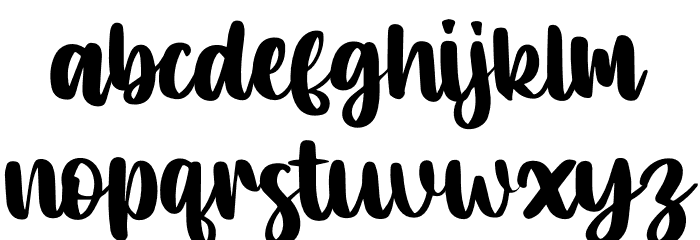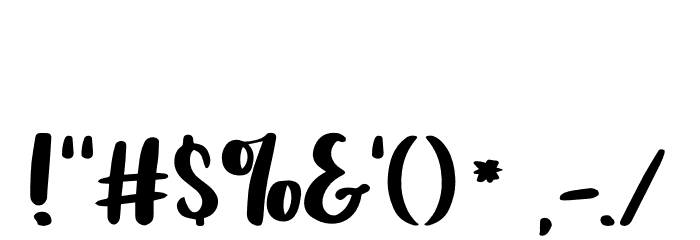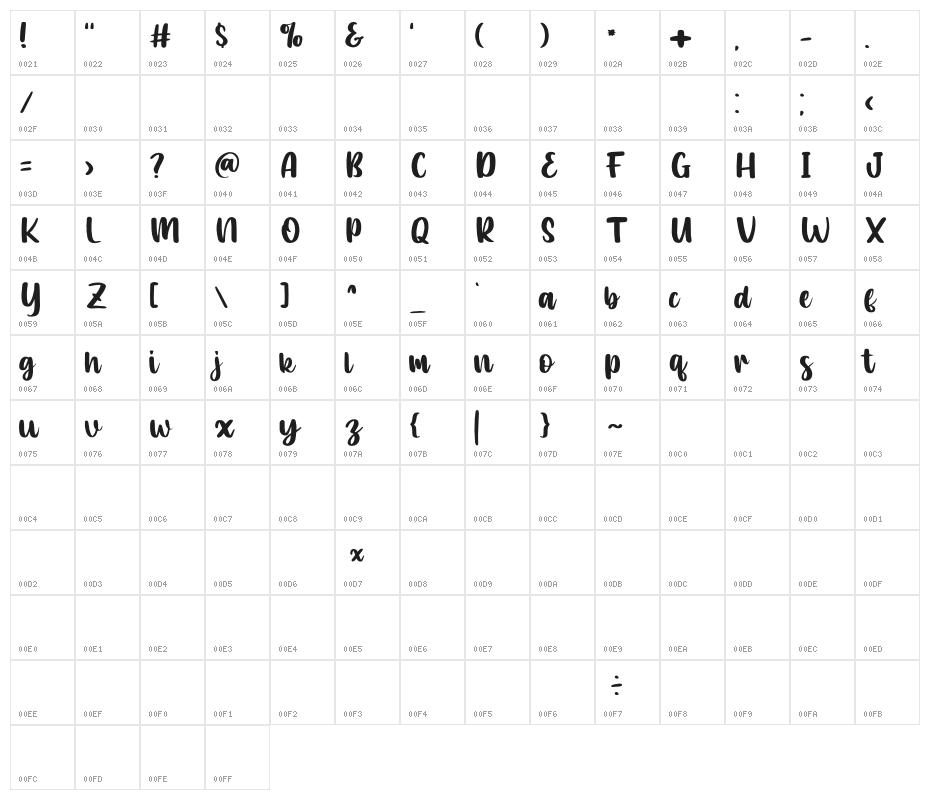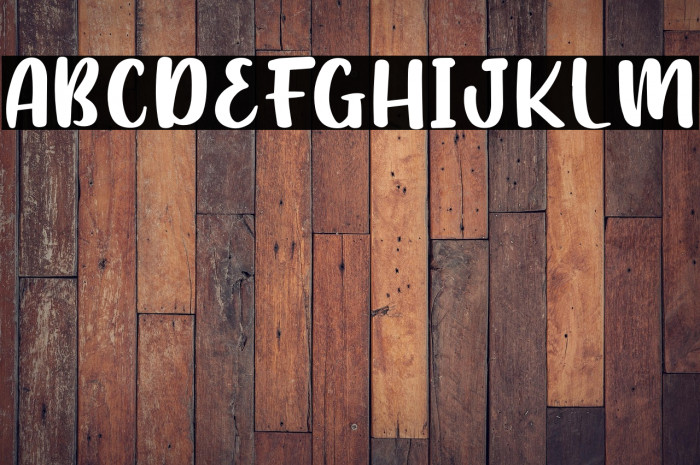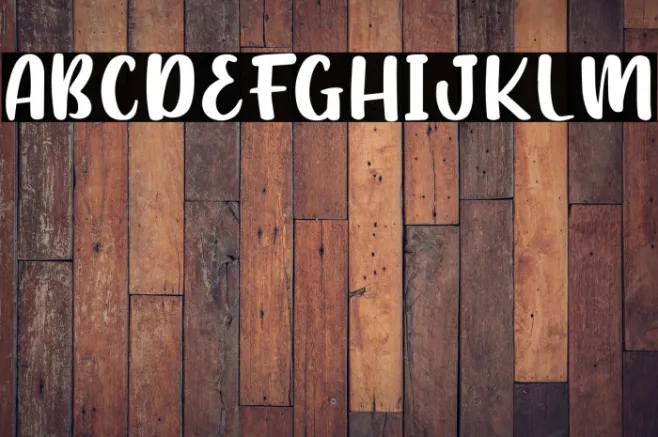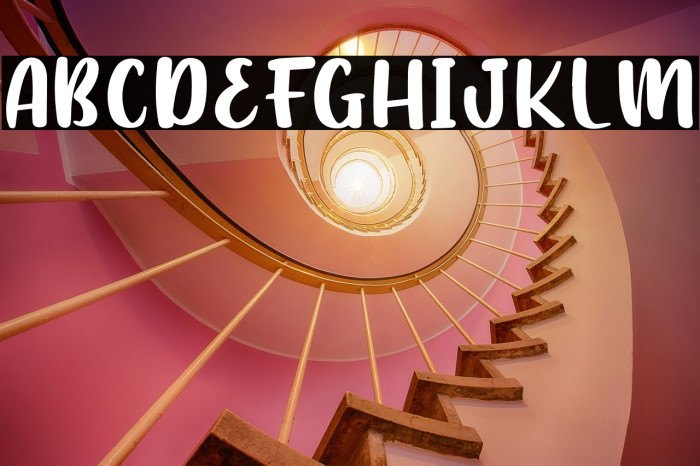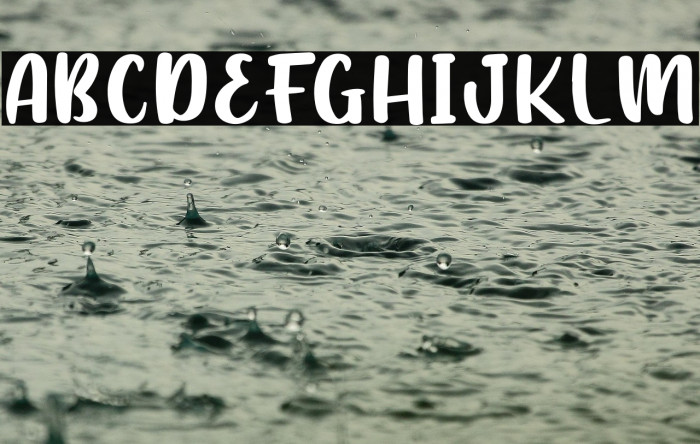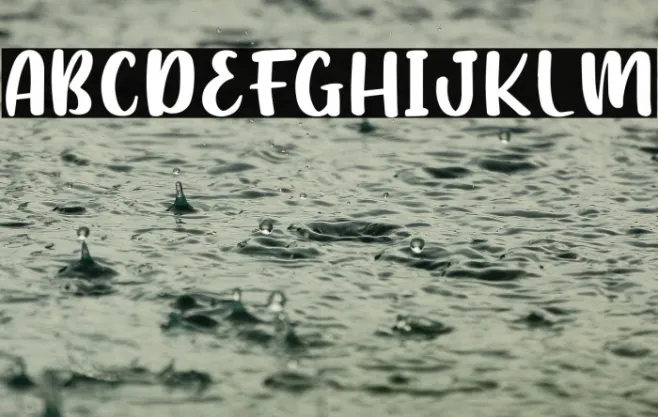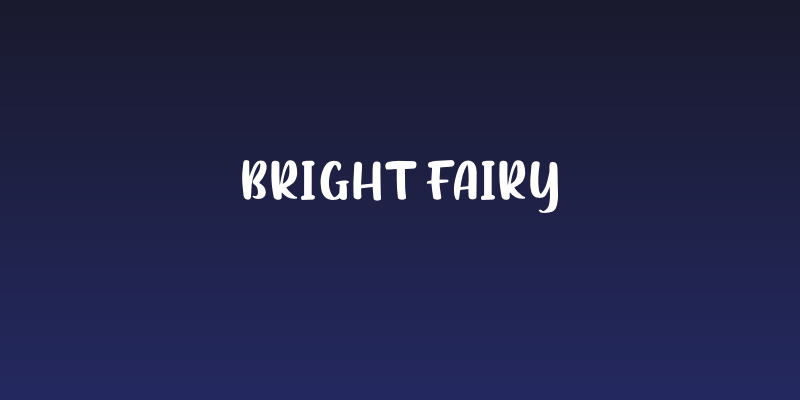
Bright Fairy Font
This font features a playful and whimsical script style with bold, rounded strokes that convey a sense of fun and creativity. The letters are interconnected, giving it a fluid and dynamic appearance. The uppercase characters maintain a consistent height, while the lowercase letters exhibit a charming irregularity, adding to its handcrafted feel. The numerals and special characters are designed to match the overall aesthetic, ensuring a cohesive look across all elements. This font is ideal for projects that require a touch of personality and flair.
A playful, bold script font with a whimsical and handcrafted feel.
- Font: Bright Fairy
- Proposed Projects: Ideal for greeting cards, invitations, playful branding, and social media graphics.
- Category: Script
- Use Case: Logos, Headlines, Invitations